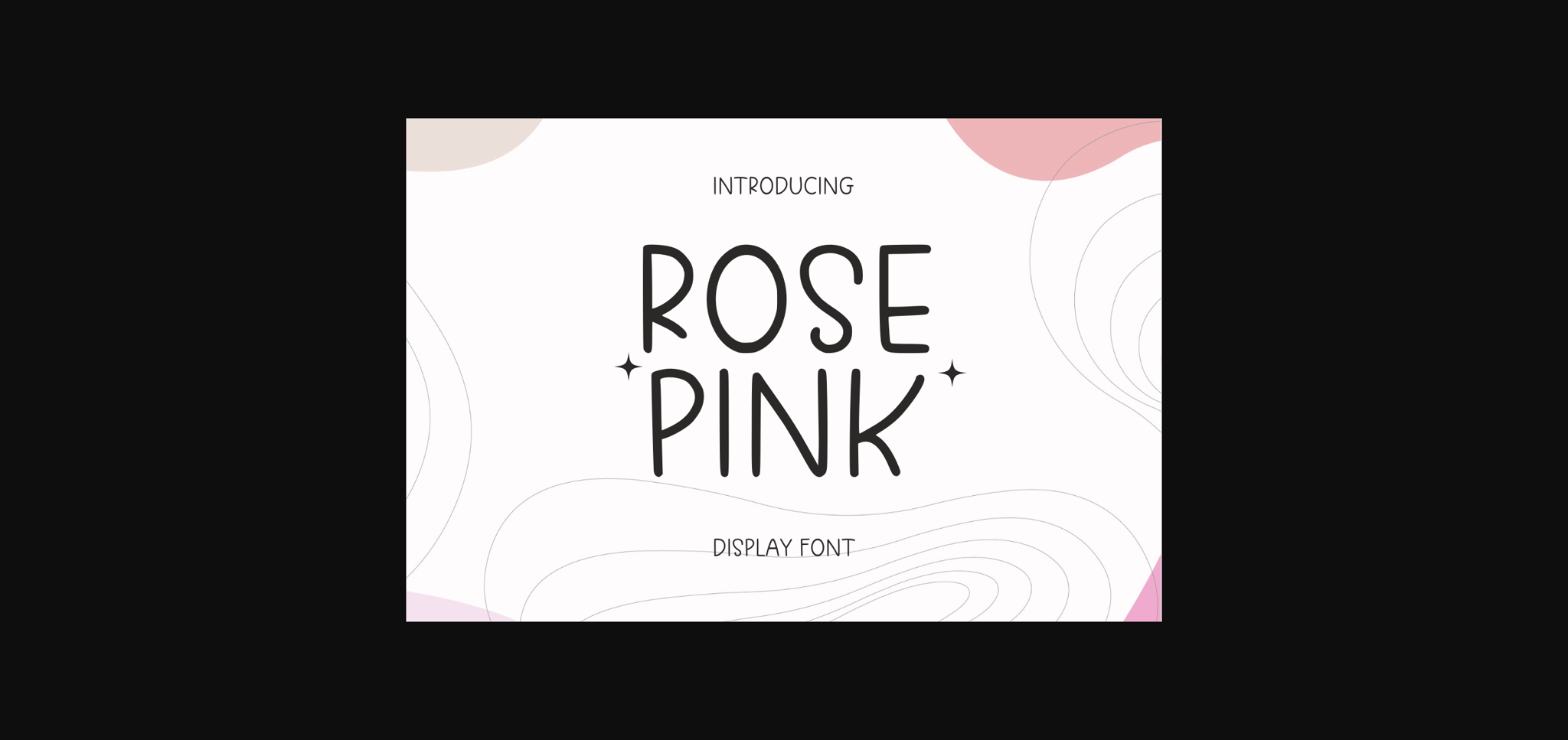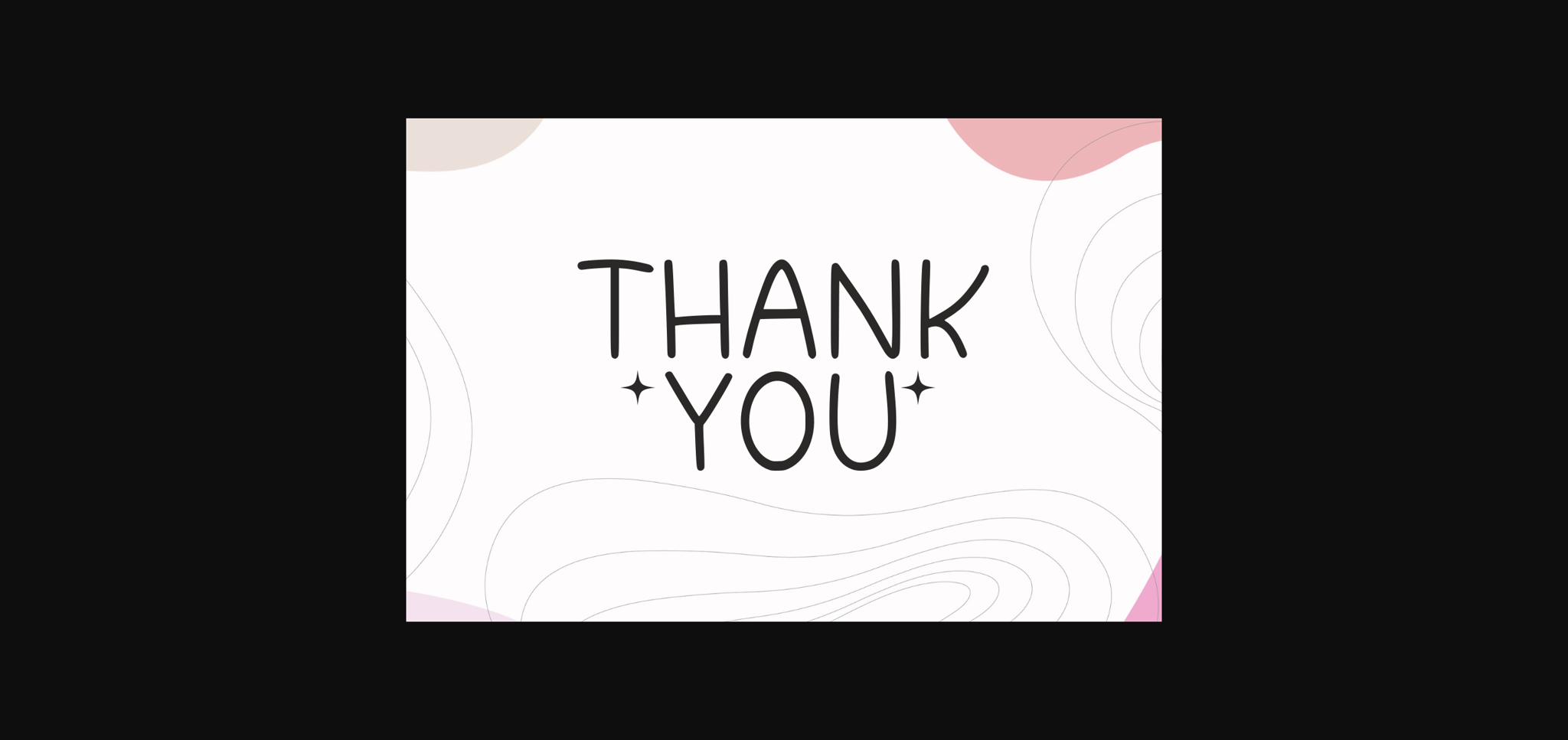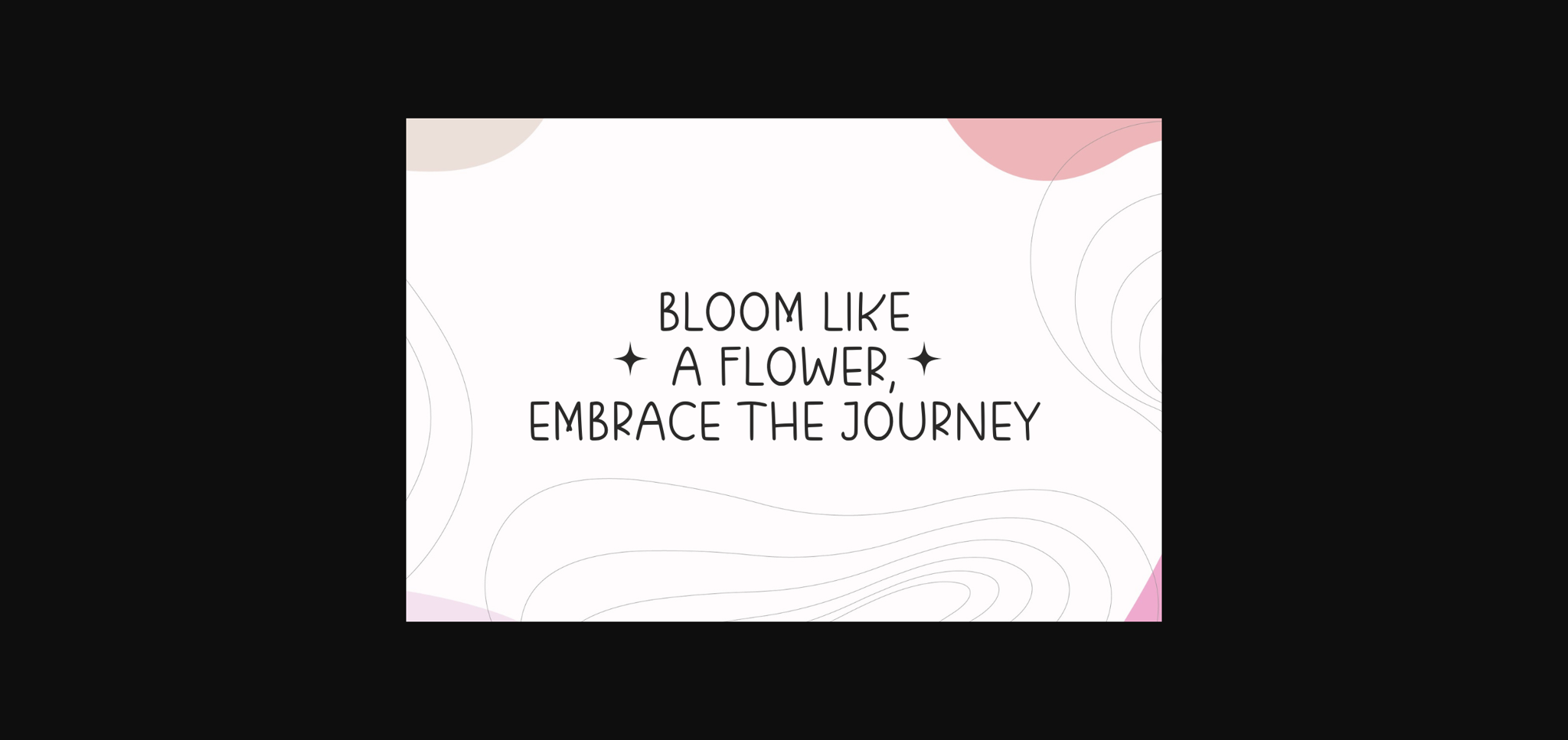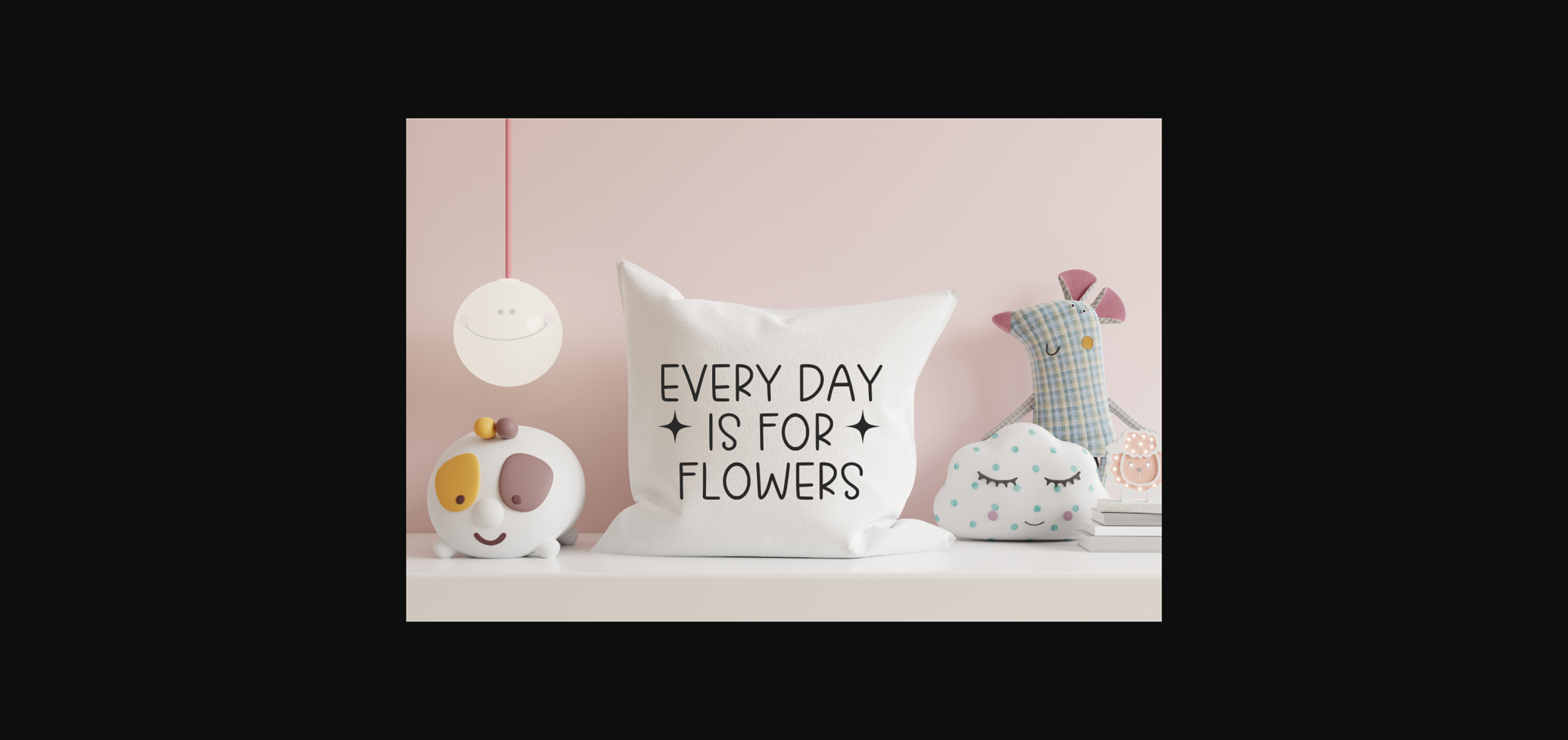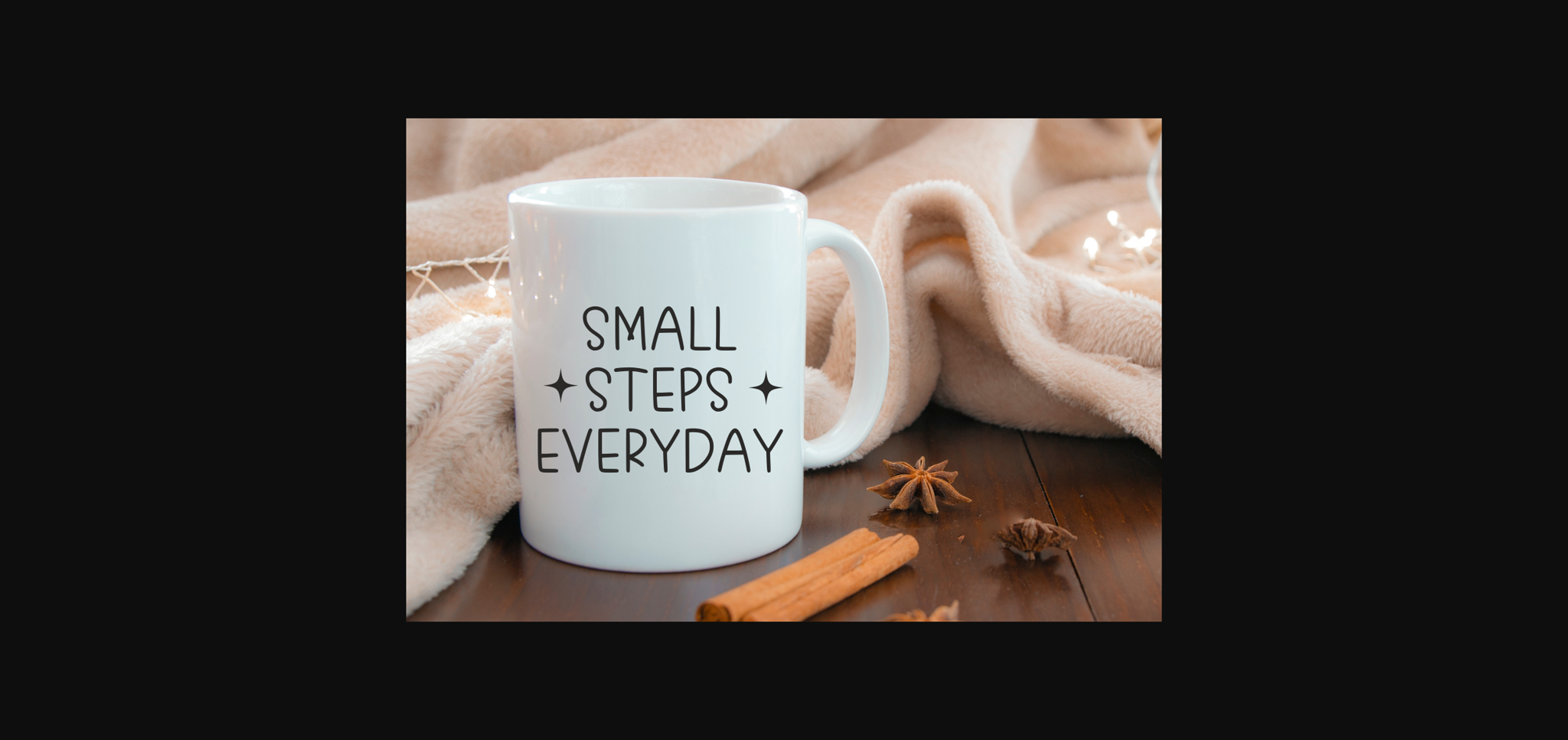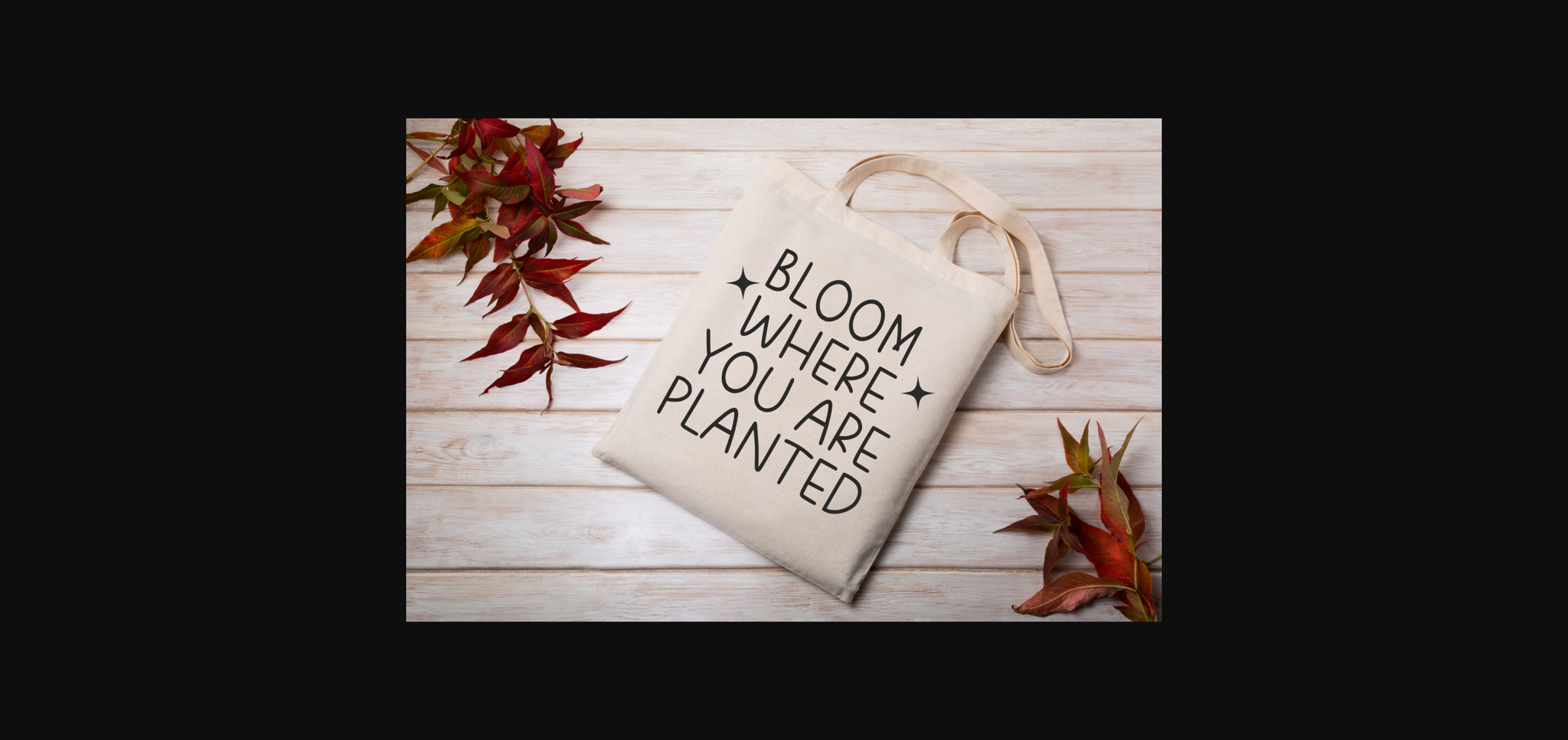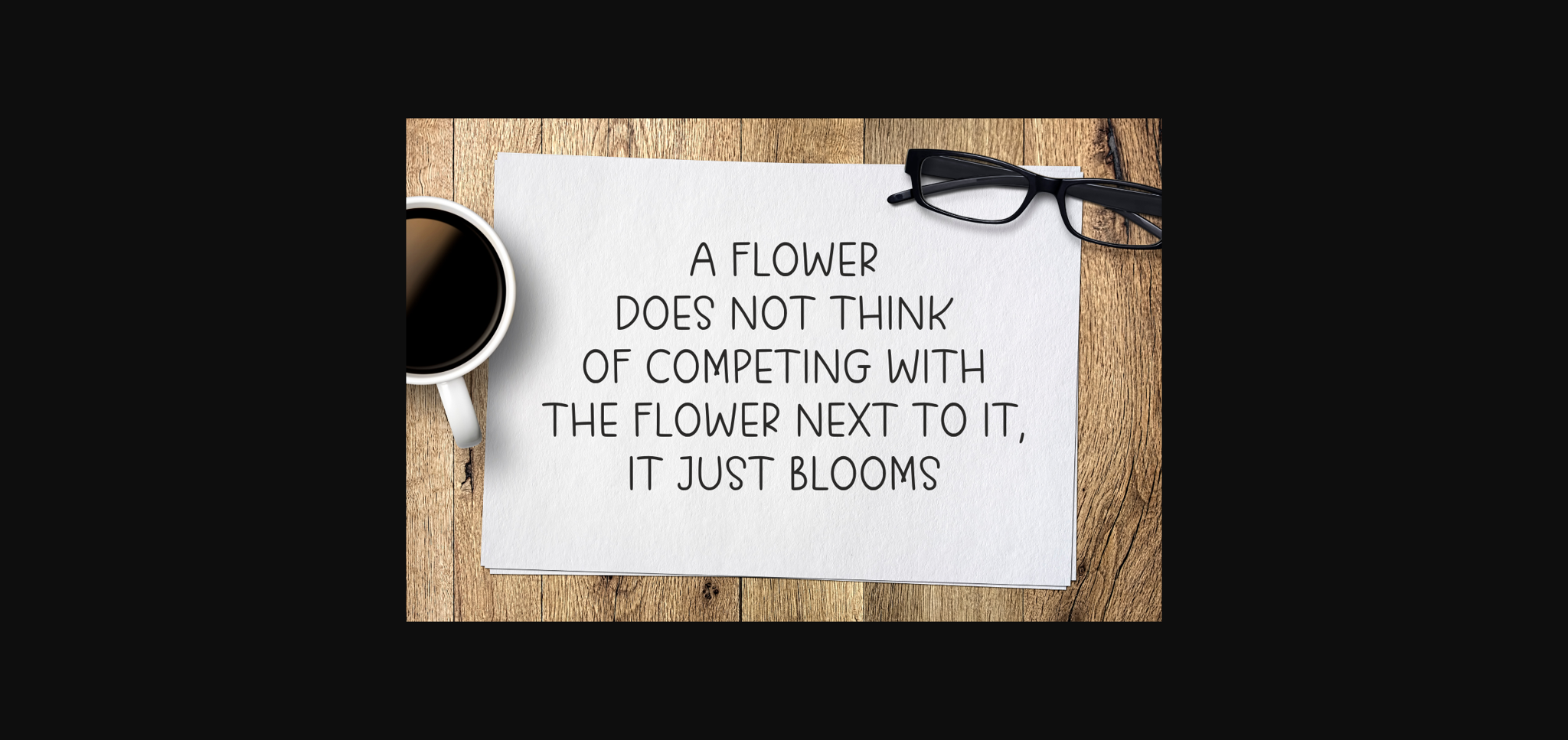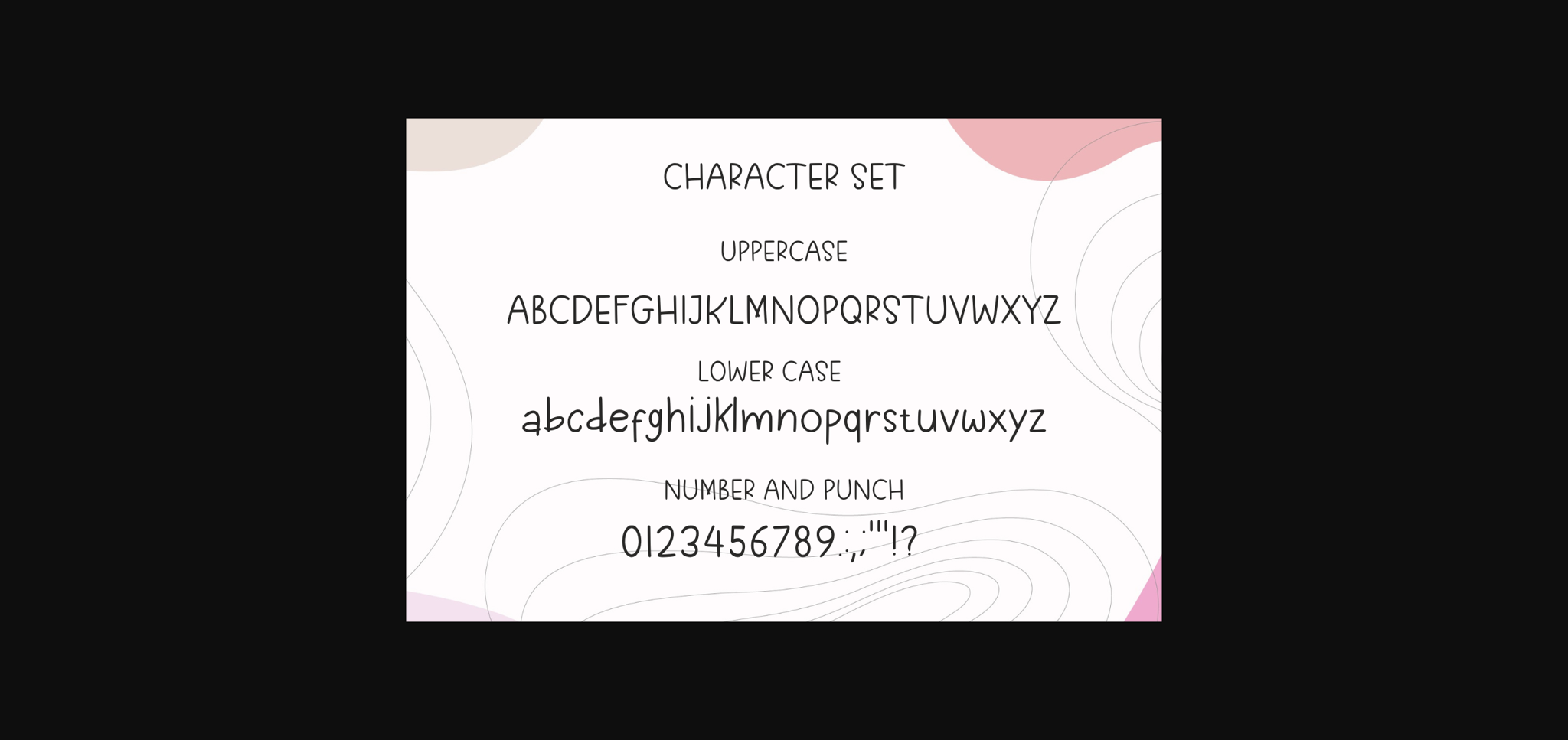
HomeSans Serif FontsRose Pink Font Sans Serif Fonts Rose Pink Font FacebookXPinterestWhatsApp 1 of 10 ... Rose Pink Font Poster 2... Rose Pink Font Poster 3... Rose Pink Font Poster 4... Rose Pink Font Poster 5... Rose Pink Font Poster 6... Rose Pink Font Poster 7... Rose Pink Font Poster 8... Rose Pink Font Poster 9... Rose Pink Font Poster 10... About Rose Pink Font Rose Pink is a cute and playful sans-serif font. Whatever the topic, this font is perfect for your creative craft needs! DOWNLOAD NOW People also explored Gameshow Font Rhapsody Lovers Font Hungtrey Beatmora Font Tire Tracks Font Botani Botanical Font Ardelio Font Lovic Font Crinacker North Pole Font 259 0 TagsRose Pink Font Previous articleHeijka Sans FontNext articleHappiest Sunrise Font LEAVE A REPLY Cancel reply Comment: Please enter your comment! Name:* Please enter your name here Email:* You have entered an incorrect email address! Please enter your email address here Website: Save my name, email, and website in this browser for the next time I comment. Personal Use Free Predators Personal Use Free Read more about this font Roustel Personal Use Free Read more about this font Scoothlane Personal Use Free Read more about this font Awesome Snowflakes Font Personal Use Free Read more about this font BLOG Where to Buy American Fonts Online in 2024 Where to Buy American Fonts Online: The Ultimate Guide for 2024 Looking for the perfect American font to elevate your design projects? You're in the... Using Fonts in Digital Marketing: Tips to Strengthen Your Brand Identity Elegant Wedding Invitation Fonts – Handwritten & Script Fonts Exploring Font Trends